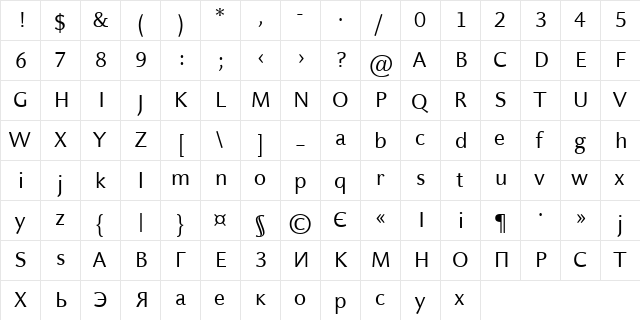
CelesteSans CelesteSans
| Foundry | Christopher Burke |
| Designer | Christopher Burke |
Design Context for CelesteSans Typeface
CelesteSans offers clean, dependable letterforms without strong stylistic allegiance, making it a practical choice for designers who need flexibility.